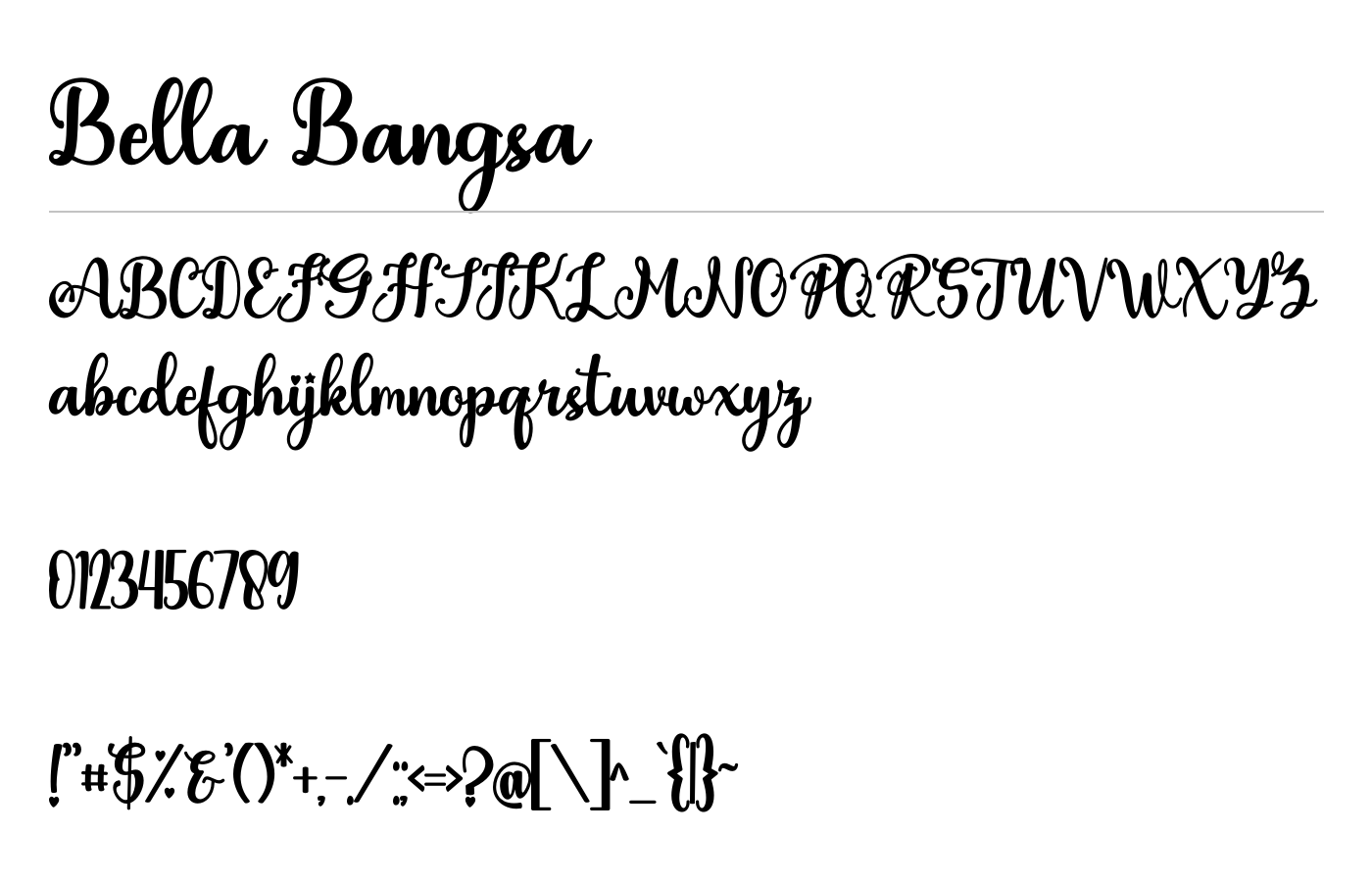
Bella Bangsa is a lively script font with a charming, handcrafted feel, showcasing smooth, rounded strokes and playful swashes that add personality and elegance. Its medium weight and balanced x-height make it highly readable while maintaining a warm, inviting style perfect for creative branding, invitations, and stylish headlines. This font works well for designs that want to convey friendliness, creativity, and a touch of sophistication.
Bella Bangsa Font
About Bella Bangsa Font
| Font family | Bella Bangsa Font |
| Designer | Arief Tri Sulistiyono |
| Trademark | Supersemar Letter |